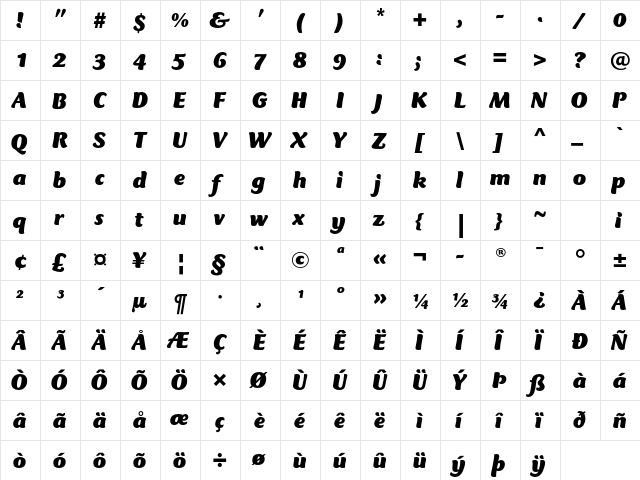
Mercurius CT Std Black Italic
| Designer | Adrian Williams |
Design Context for Mercurius CT Std Typeface
Mercurius CT Std takes a measured approach to typography — its balanced proportions and neutral character make it a reliable workhorse for both digital and print work. The dynamic lean of this cut emphasises speed and emphasis in any layout.
Pro Tip: Try Mercurius CT Std for annotation and caption copy alongside an upright companion — the contrast in angle creates a dynamic but ordered typographic system.